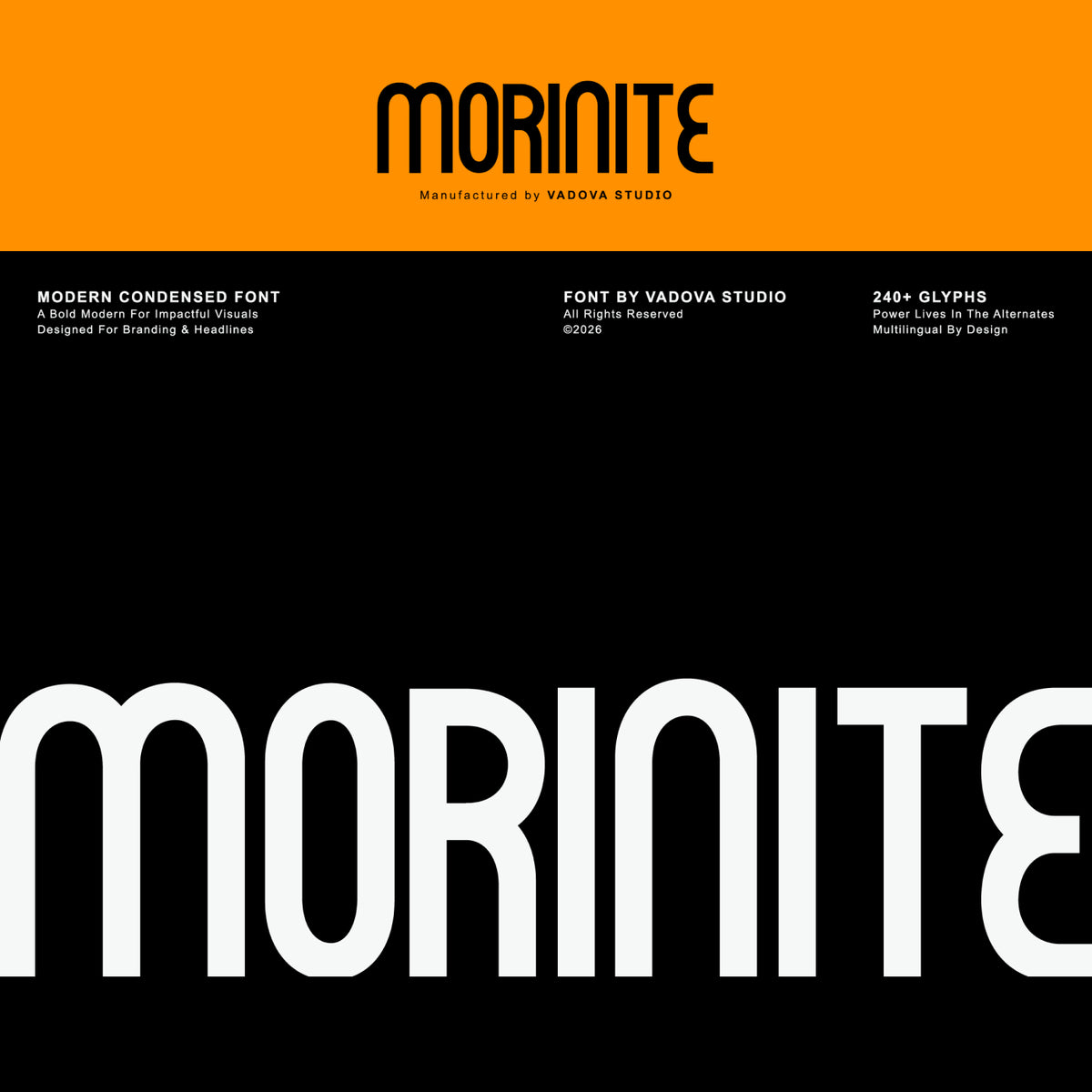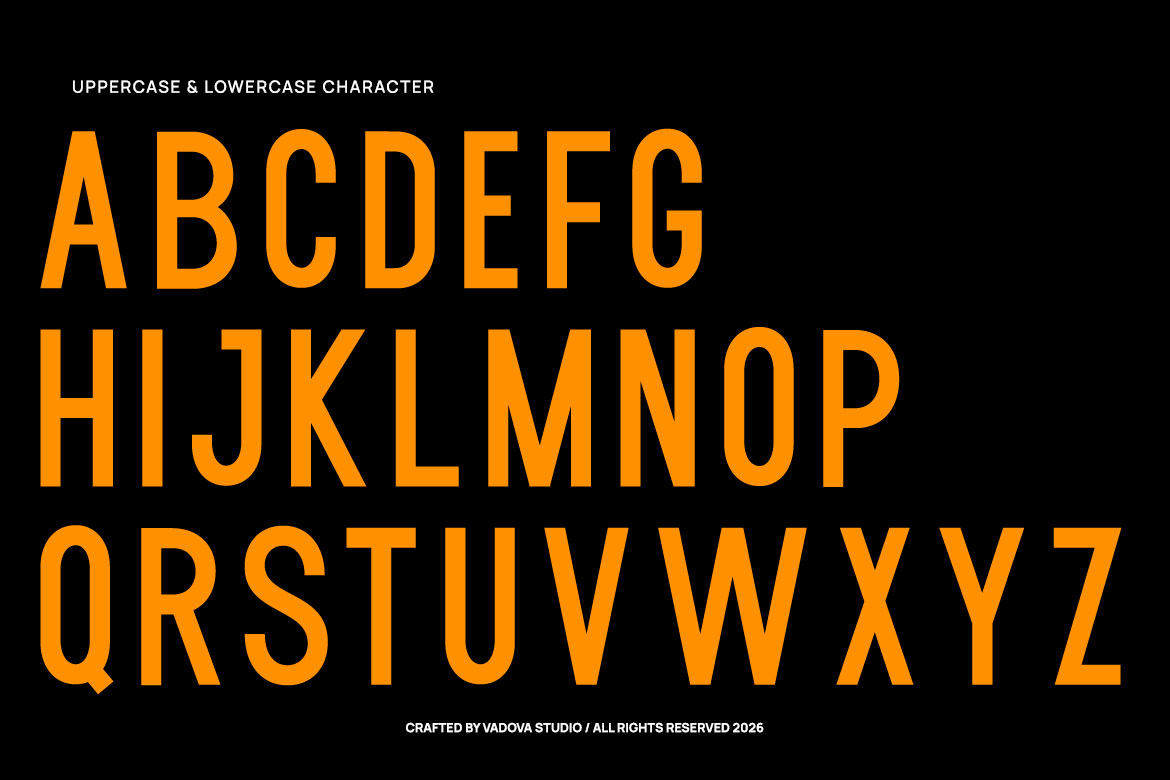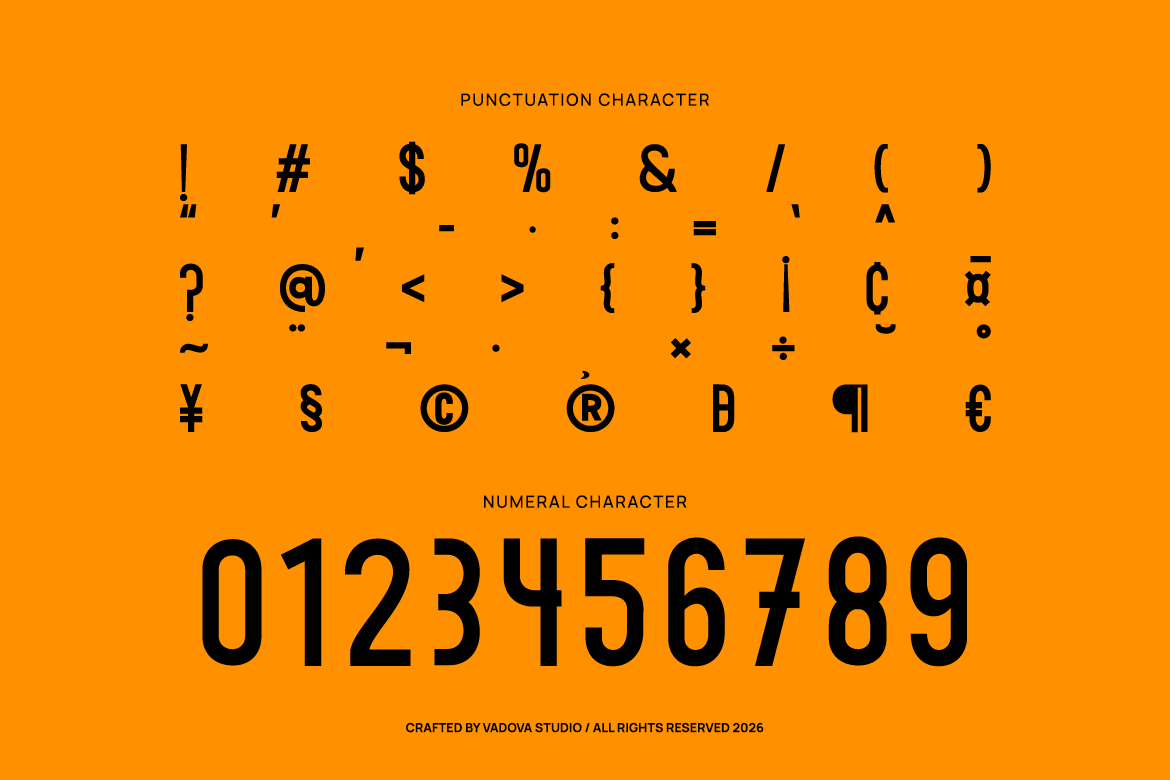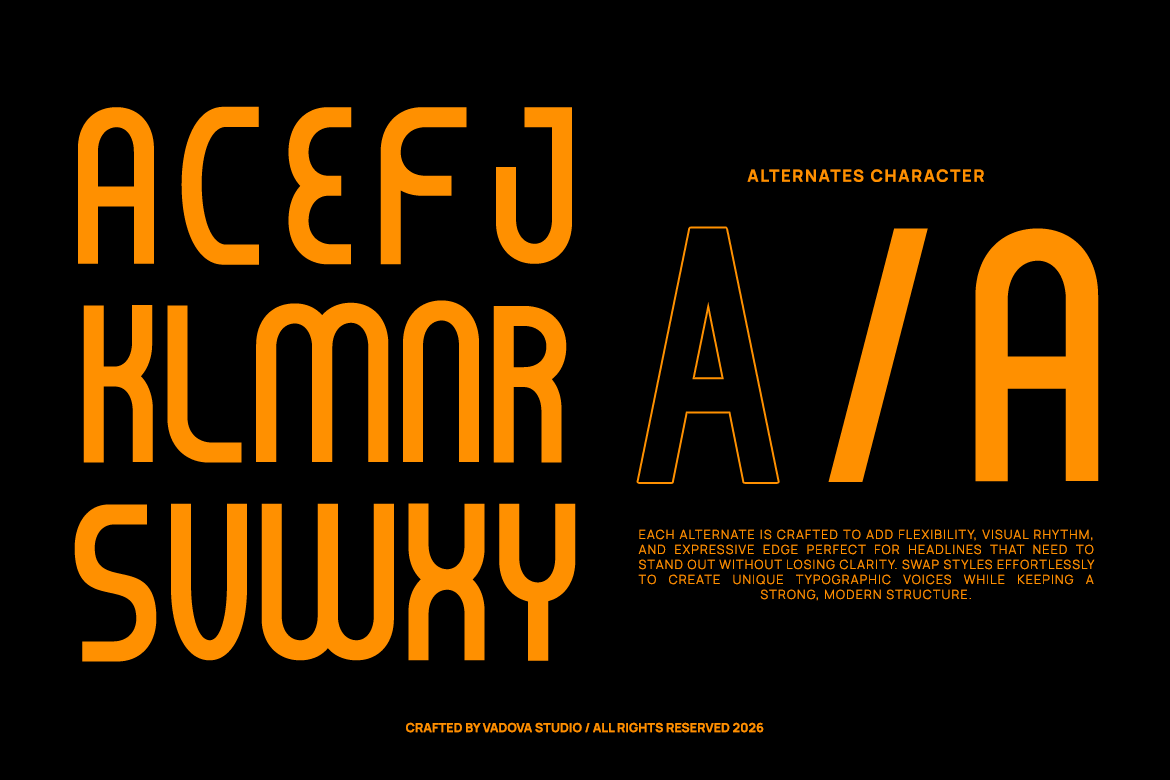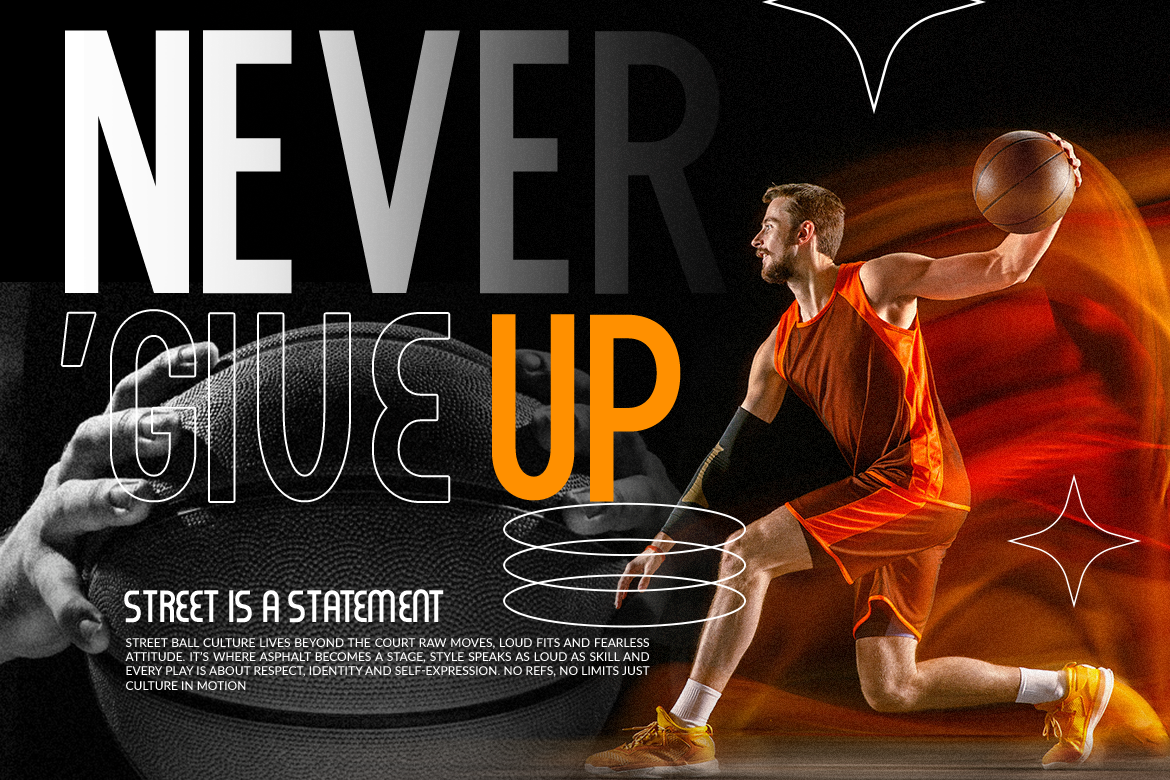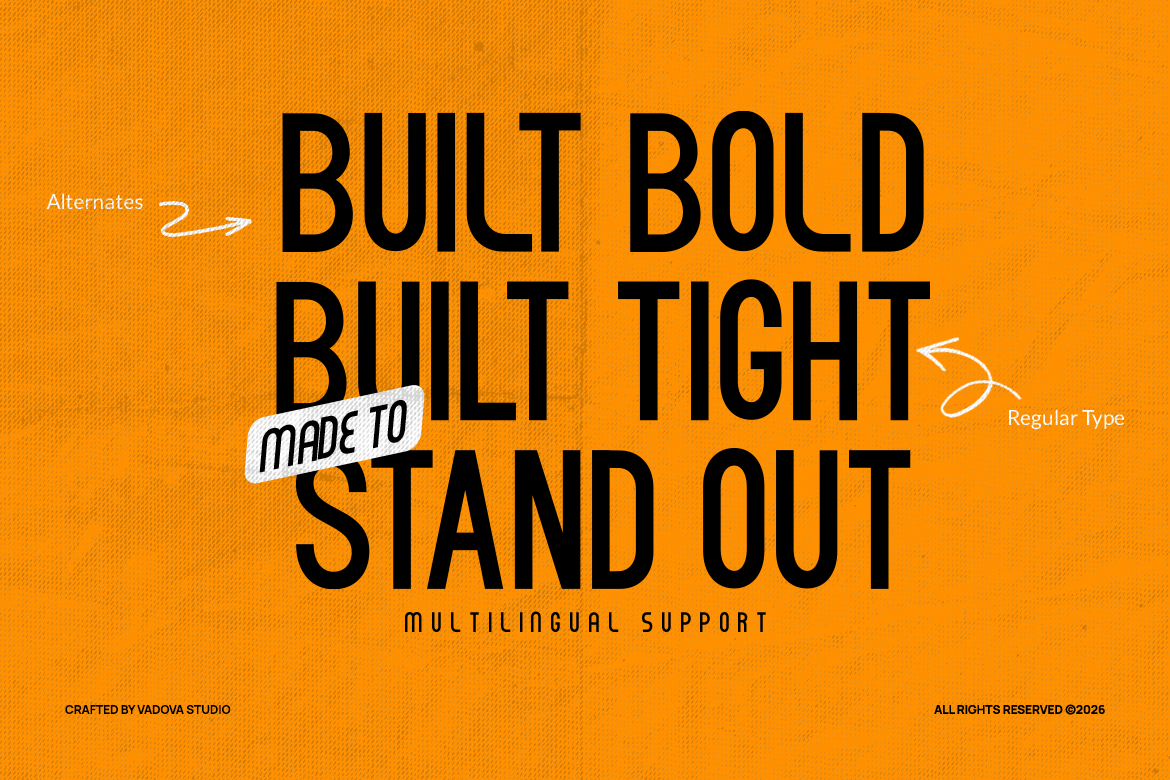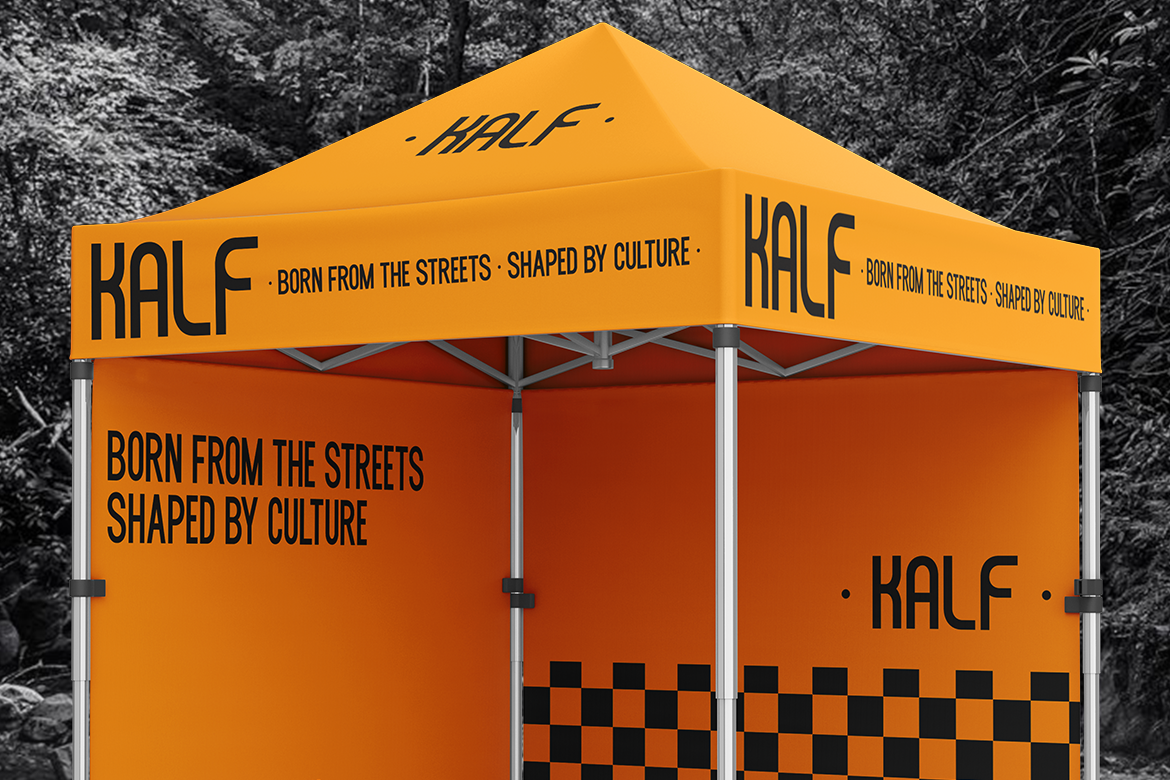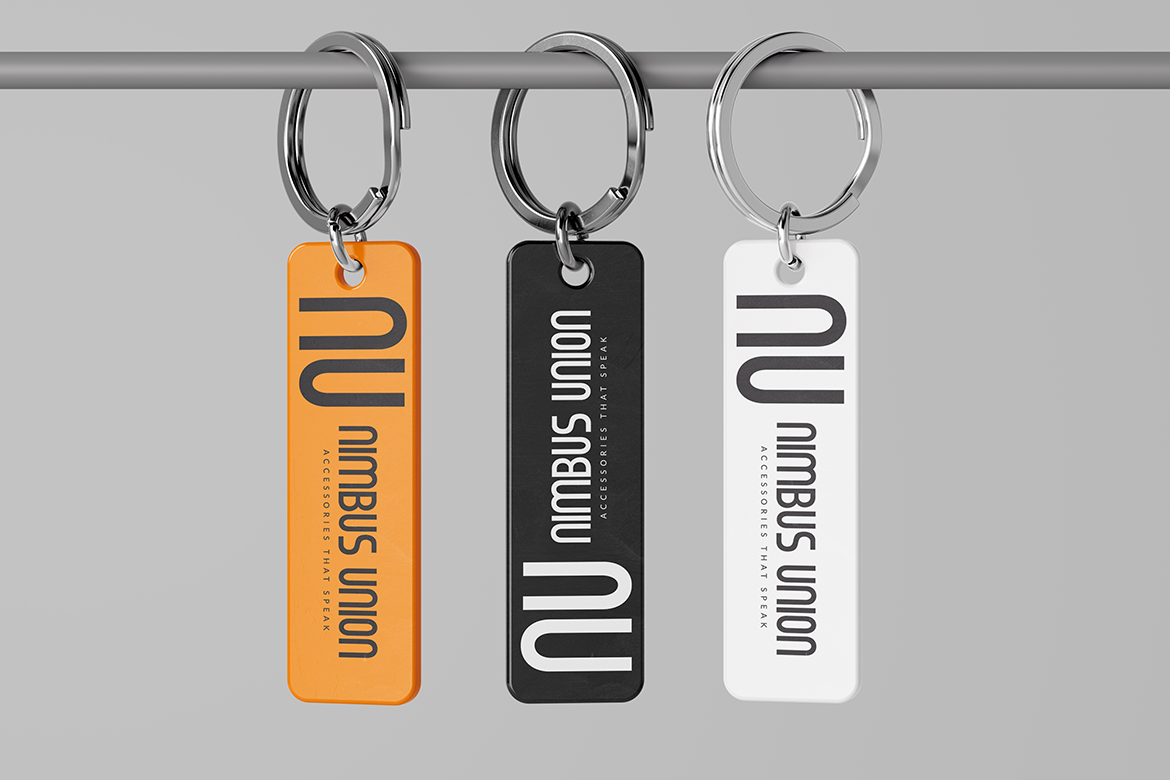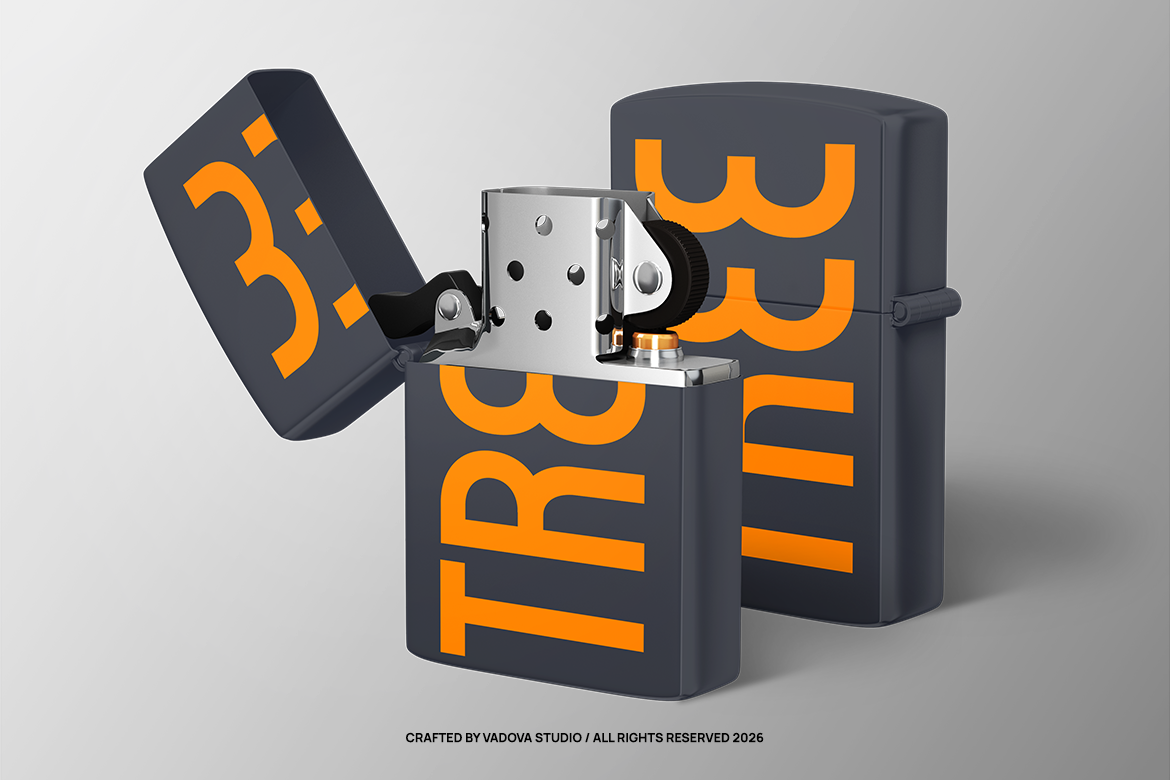
Morinite Modern Condensed Font
Morinite is a modern condensed sans serif font built with bold structure, tight spacing, and confident geometry. Designed for impactful headlines and strong visual presence, it delivers clean edges, tall proportions, and a compact form that maximizes space without sacrificing readability. The package includes uppercase, lowercase, numbers, punctuation, multilingual support, and stylistic alternates.
Relevance and Uses Case is perfect for branding systems, bold logos, posters, headlines, packaging, sports graphics, streetwear designs, editorial layouts, advertising campaigns, social media banners, modern corporate visuals, and any project that needs strong condensed typography with maximum impact.
Multilingual Supports
Alternate Support
Morinite is a modern condensed sans serif font featuring bold structure, tight spacing, and tall proportions. It includes uppercase and lowercase characters, numerals, punctuation, multilingual support, and stylistic alternates, available in TTF, OTF, and WOFF formats.